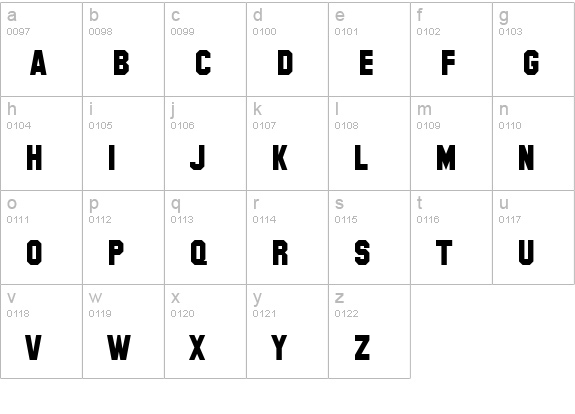
SF Collegiate Solid Font Details
SF Collegiate Solid is a captivating and bold font that exudes the essence of collegiate spirit. With its strong and confident letterforms, this font is perfect for projects that require a touch of youthful energy and a sense of academic excellence. The solid and sturdy design of SF Collegiate Solid makes it ideal for various applications such as sports team logos, school banners, and educational materials. What makes SF Collegiate Solid even more appealing is that it is freely available to download at FontsMarket.com. This means that anyone can access this incredible font without any cost, making it an excellent choice for students, designers, and educators who are looking for a high-quality typeface that won't break the bank. The versatility of SF Collegiate Solid is undeniable, as it seamlessly blends in with both modern and traditional design aesthetics. Its clean lines and bold strokes make it easily legible even at smaller sizes, ensuring that your message will be conveyed effectively in any context. Whether you are designing a flyer for a school event, creating a poster for a sports tournament, or developing a website for an educational institution, SF Collegiate Solid will undoubtedly elevate your project to a whole new level. Its timeless appeal and professional look will leave a lasting impression on your audience. So, why wait? Download SF Collegiate Solid for free at FontsMarket.com today and unlock the unlimited potential of this remarkable font. With its exceptional quality and accessibility, SF Collegiate Solid is the perfect choice for anyone seeking to add a touch of collegiate charm to their designs.